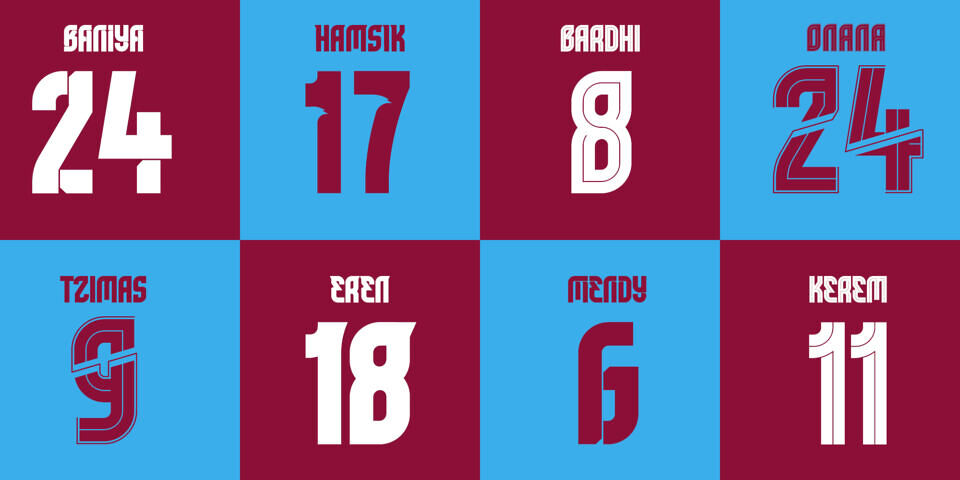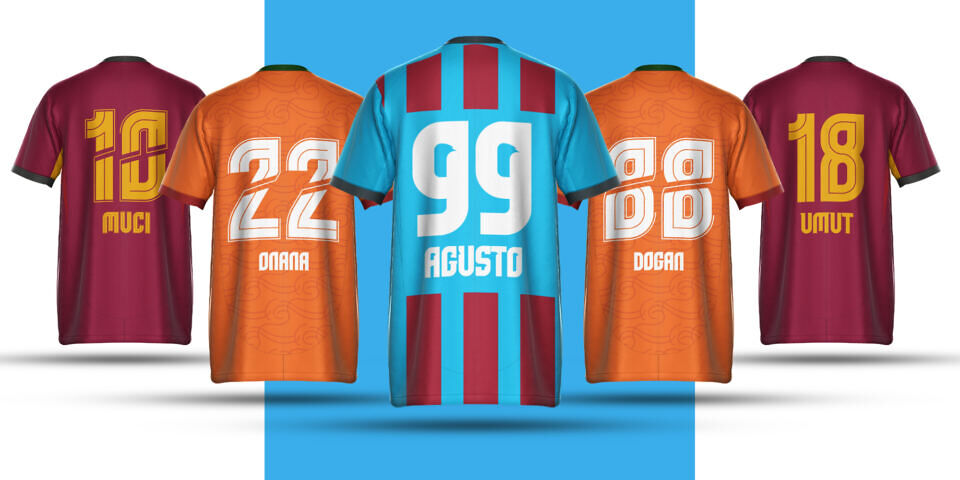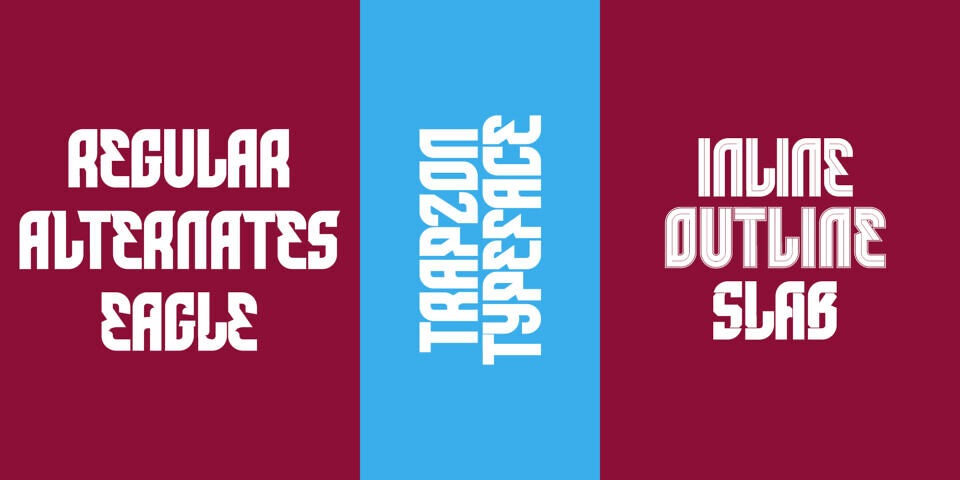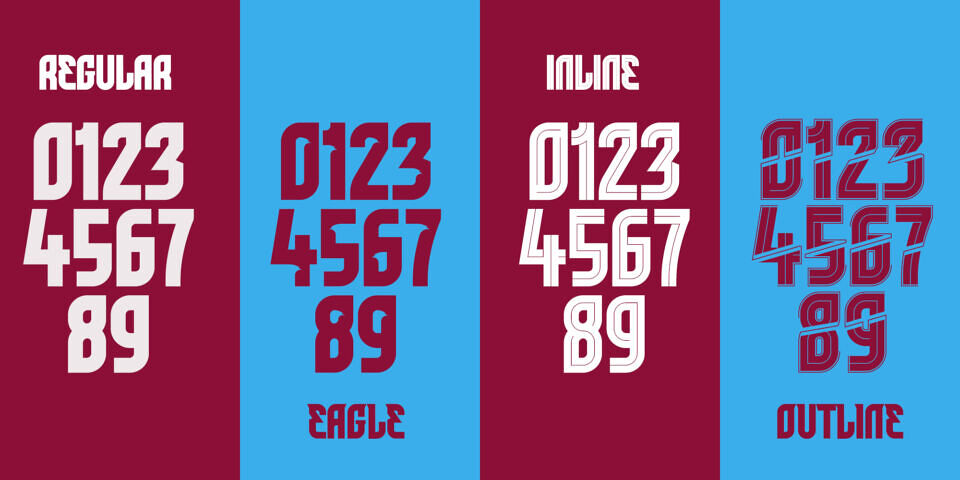
Trabzon Font
Trapzon is a bold display typeface inspired by the powerful identity of Trabzon—a coastal city shaped by history, the Black Sea, and relentless football passion. Its strong geometry, sharp cuts, and solid construction reflect the city’s toughness, pride, and unbreakable spirit.
Designed to echo the intensity of the stadium and the resilience of its people, Trapzon combines modern structure with aggressive character, creating a confident and commanding visual voice. Trapzon comes in 6 styles: Regular, Inline, Eagle, Slab, Outline, and Alternates, offering flexibility for expressive and impactful design.
Built for sports branding, jersey numbers, logos, headlines, posters, and visual identities, Trapzon delivers strength, clarity, and dominance—on and off the pitch.